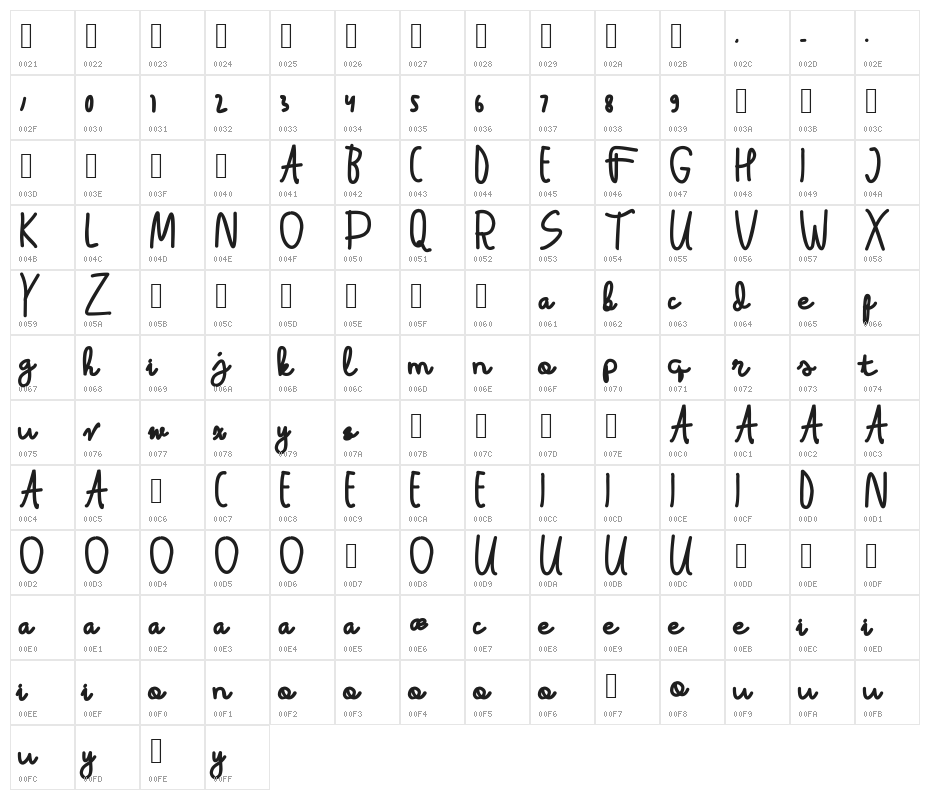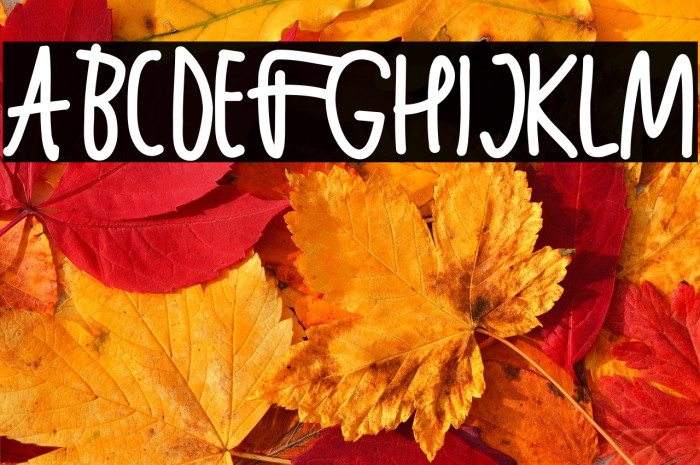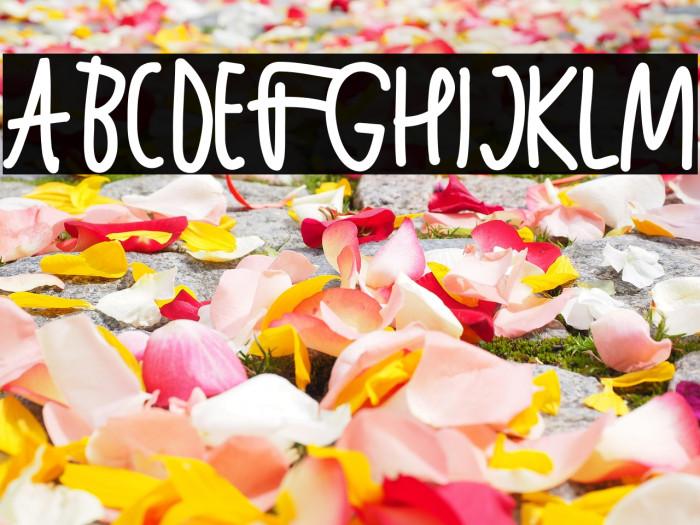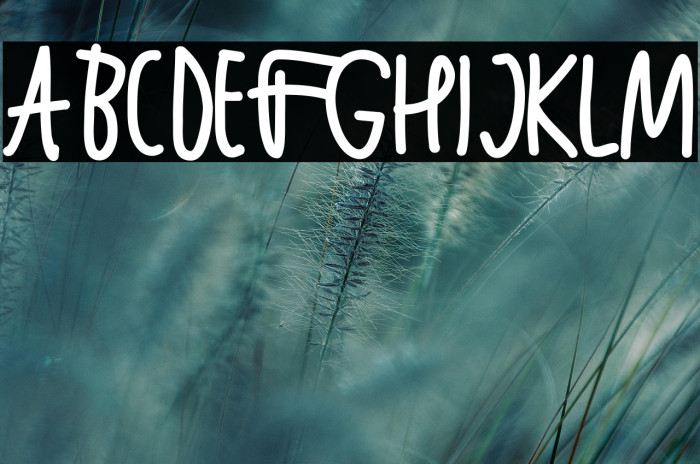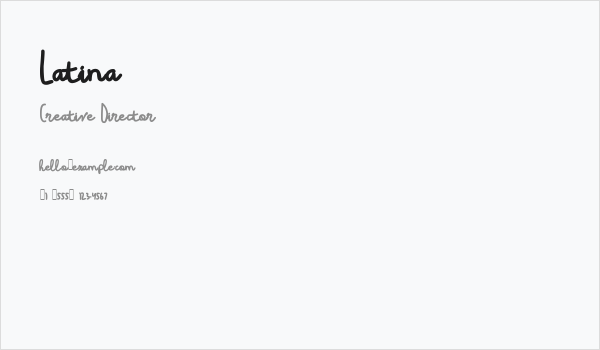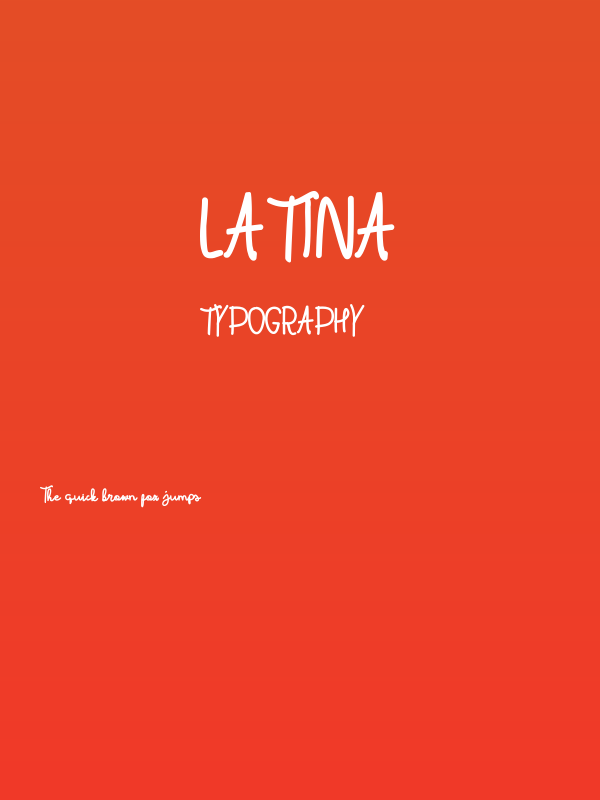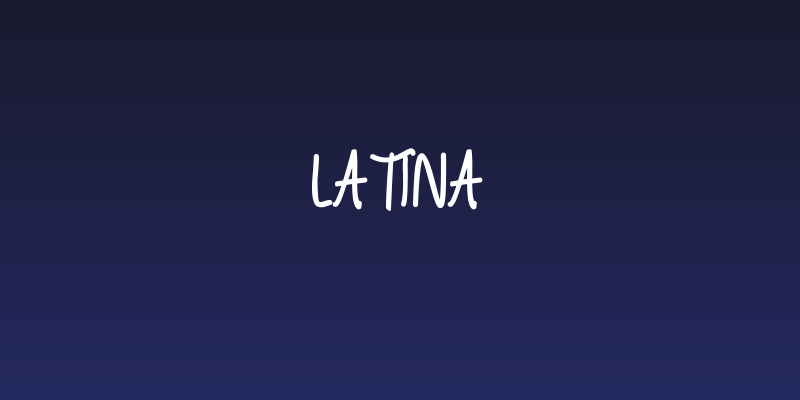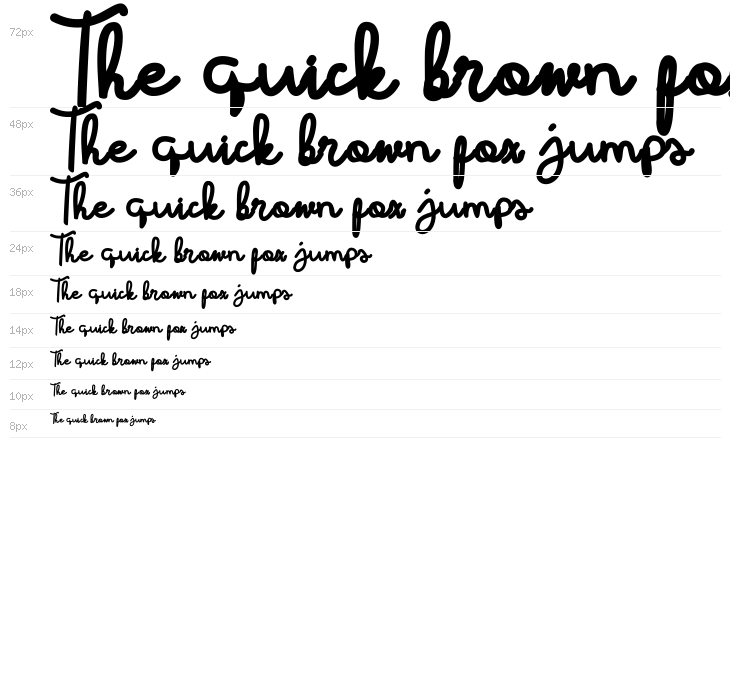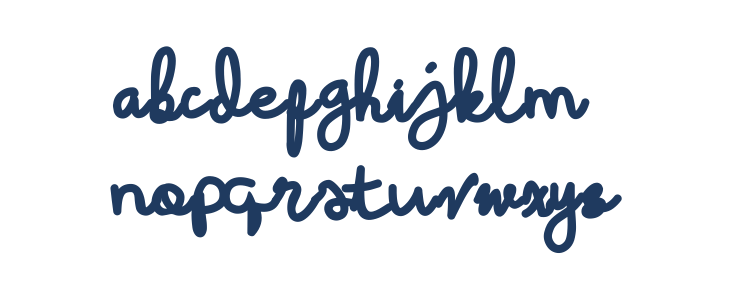
Latina Font
Latina Description
This font features a playful and energetic handwritten style, characterized by its bold and expressive strokes. The uppercase letters are tall and slightly narrow, with a casual flair that adds a sense of movement and spontaneity. The lowercase letters maintain a consistent flow, with some characters connecting smoothly, enhancing the handwritten aesthetic. The numbers are clear and bold, matching the overall style of the alphabet. Special characters are included, maintaining the same playful and dynamic feel. This font is ideal for projects that require a personal touch or a lively, informal vibe.
| Overall Style | Playful, Energetic |
| Proposed Projects | Great for greeting cards, playful branding, children's books, and social media graphics. |